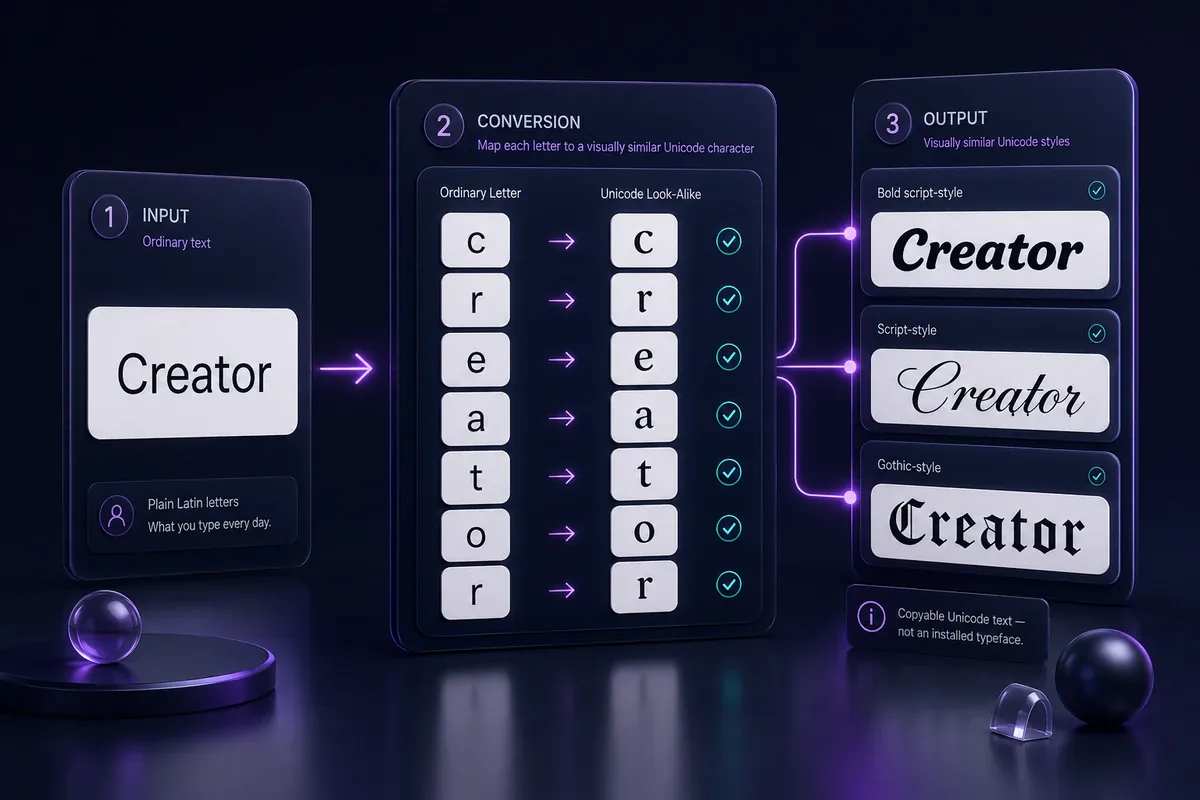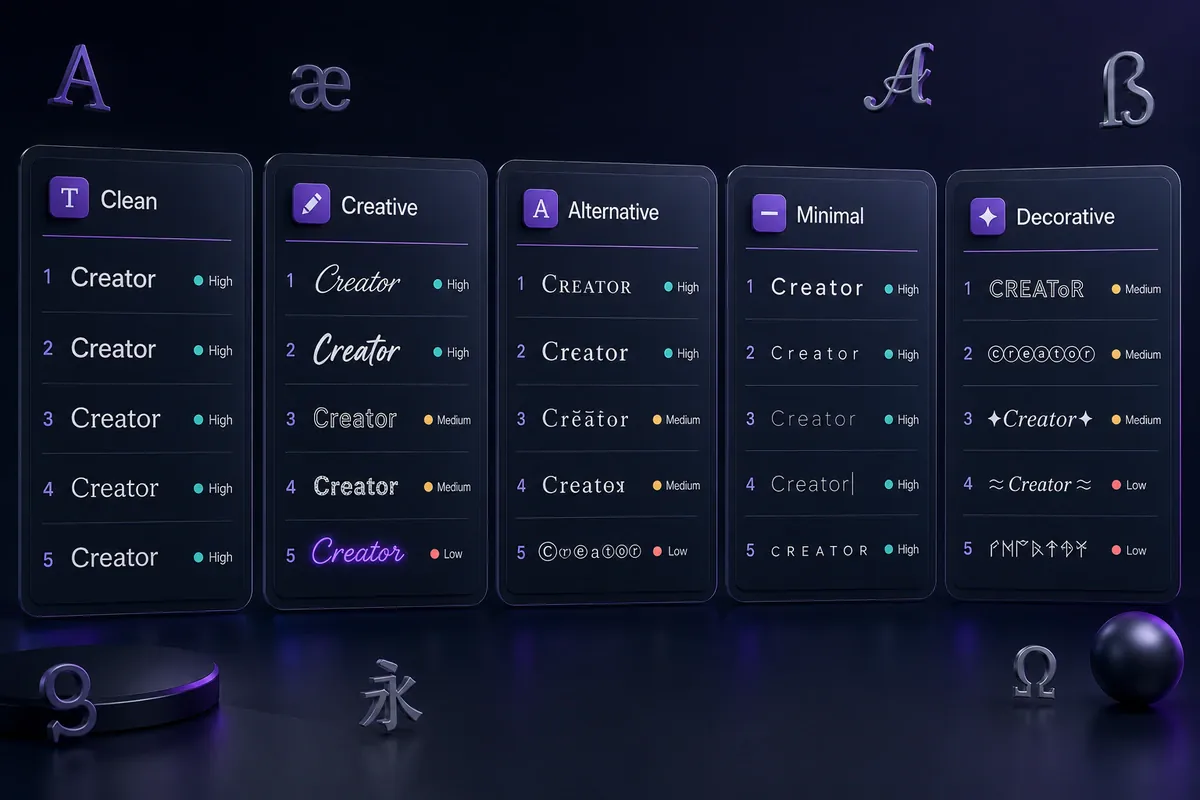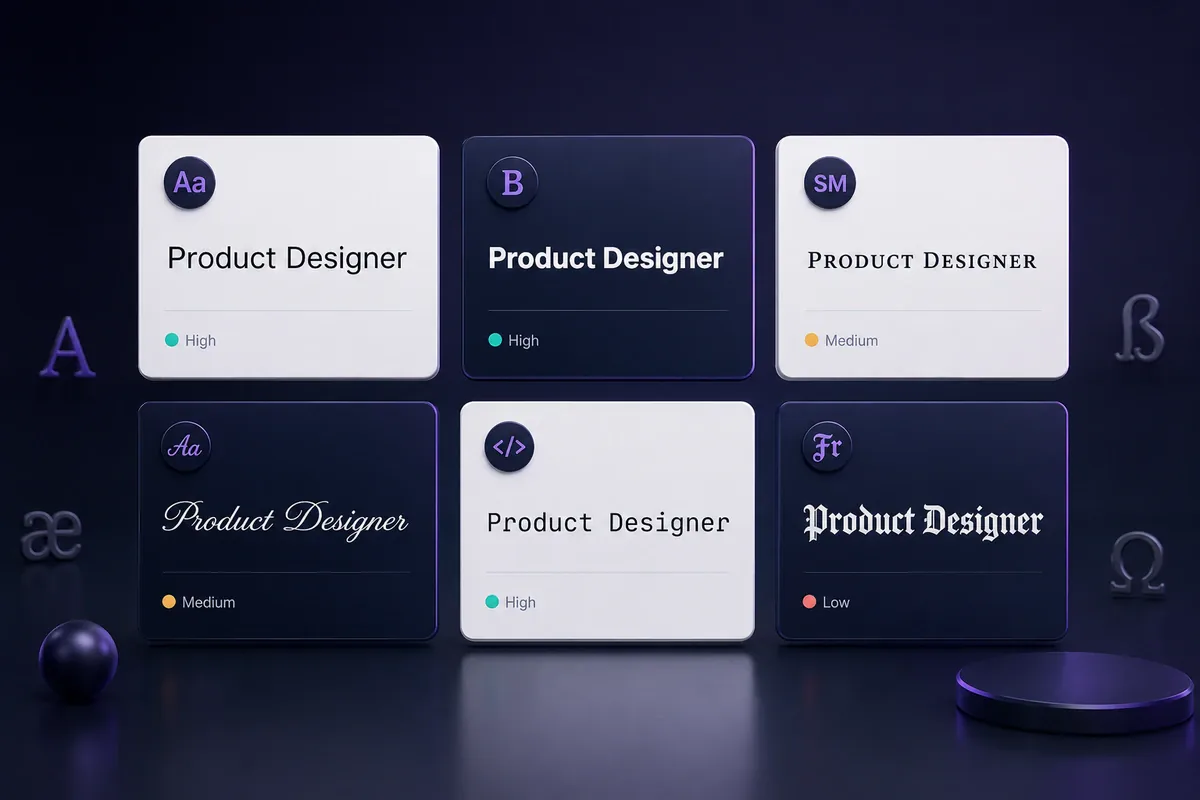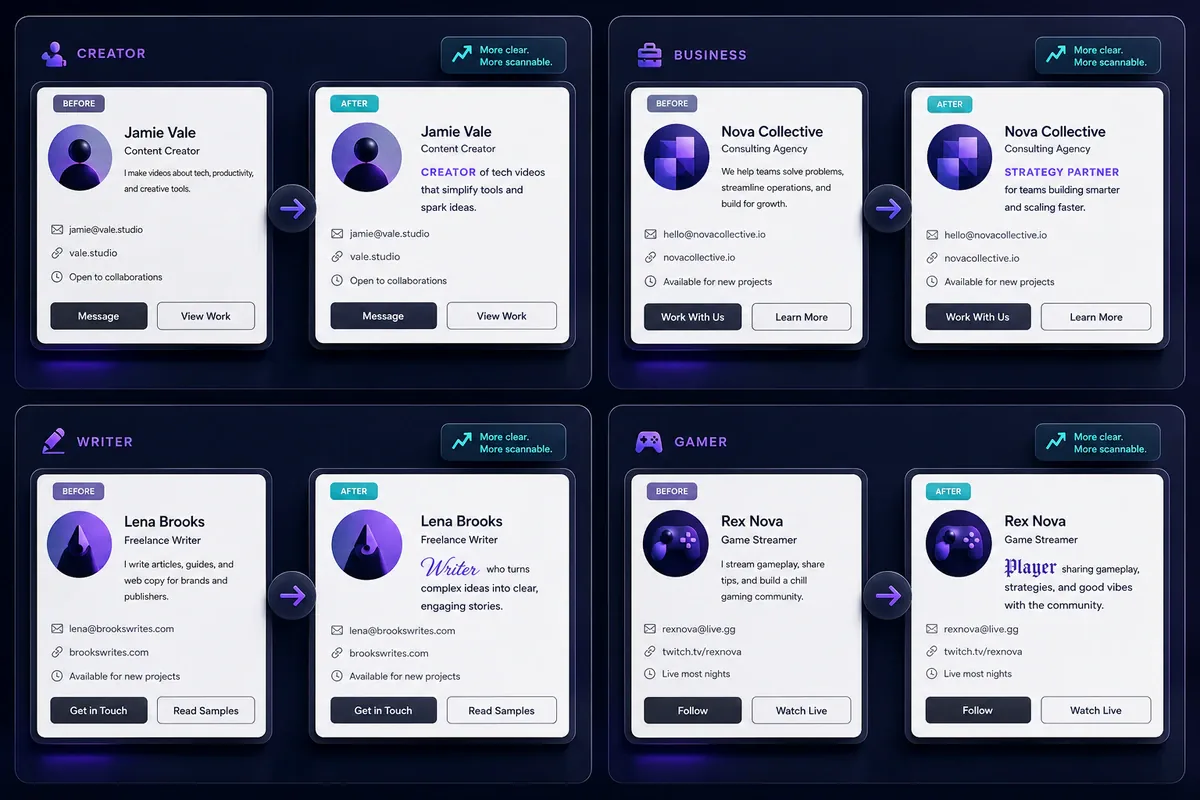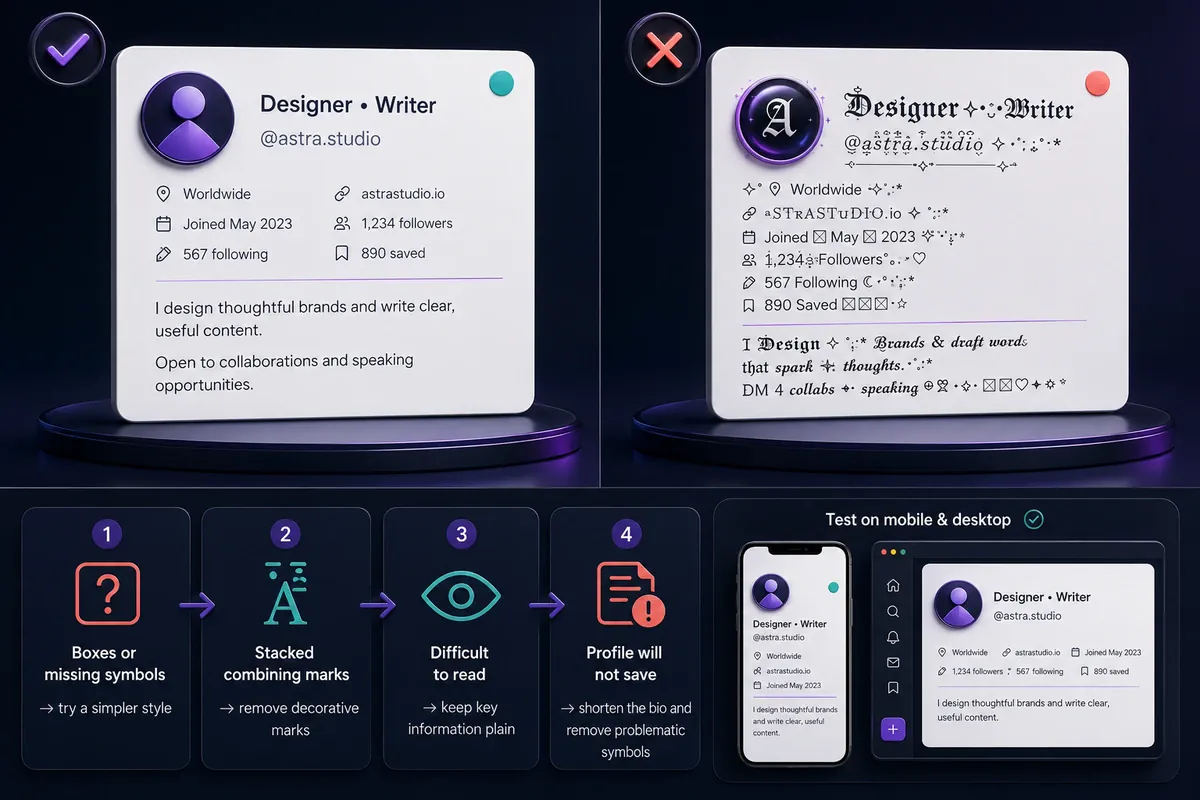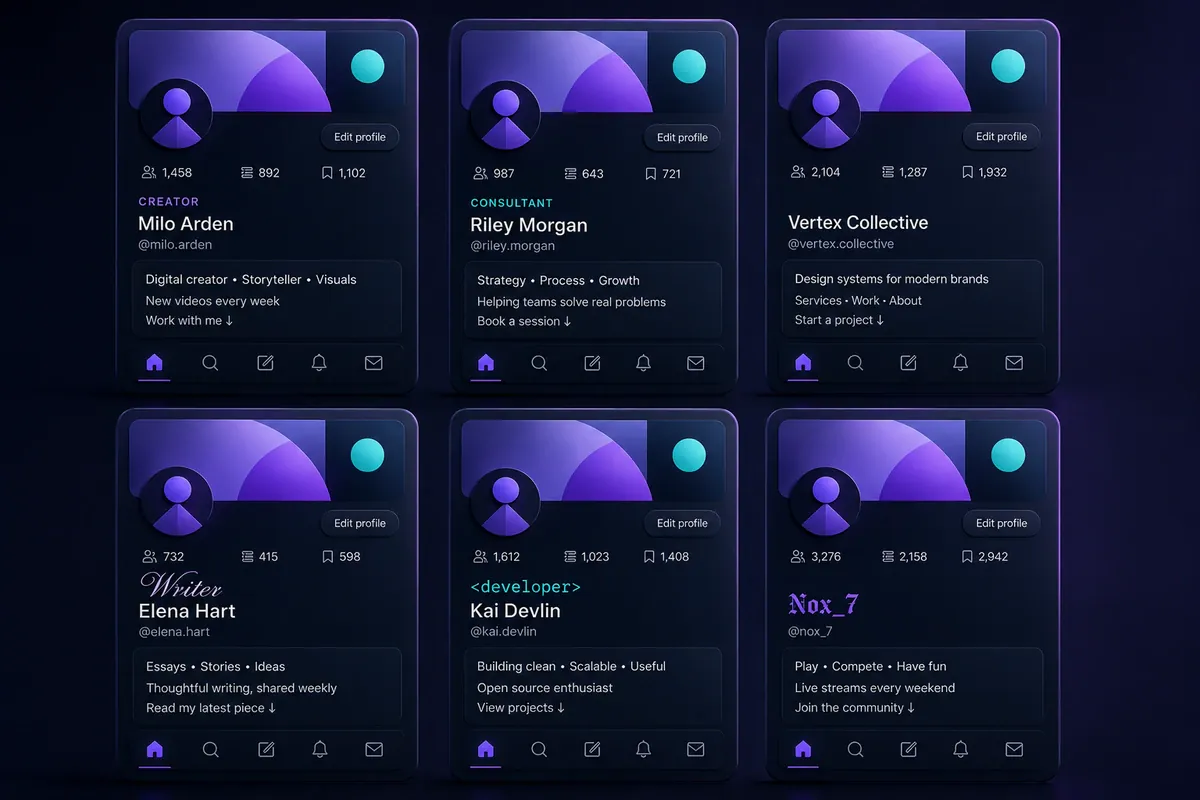
Best Fonts for Twitter Bio: 25 Copy-and-Paste Styles
Compare the best fonts for Twitter bio, copy 25 readable X styles, learn where Unicode text works, and fix broken or missing characters on mobile.
Readable font styles shown on Twitter and X bio mockups
The best fonts for Twitter bio text are bold sans-serif, small caps, monospace, and short cursive styles. Use them for one role or opening phrase, then keep names, links, contact details, and calls to action in plain text so the profile remains easy to read.
X does not include a normal profile font menu. A Twitter font generator replaces standard letters with visually similar Unicode characters that you can copy and paste.
The 25 options below include Unicode letter styles and decorative text effects. They are not 25 installed typefaces.
Quick Bio Font Checklist
• Style one short role, label, or opening phrase.
• Keep important account information in plain text.
• Start with bold, small caps, monospace, or light cursive.
• Check every letter before saving.
• Preview the finished bio at mobile size.
• Remove boxes, empty spaces, or misplaced marks.
• Keep a plain-text copy as a fallback.
Best Fonts for Twitter Bio at a Glance
Comparison of six readable Twitter bio font styles
The following styles offer a useful balance between personality and readability. The ratings are editorial judgments based on letter recognition, spacing, size, and reliance on combining marks.
StyleExampleReadabilityBest Fit
Bold sans-serif๐—–๐—ฟ๐—ฒ๐—ฎ๐˜๐—ผ๐—ฟHighBusinesses, consultants, creators
Bold serif๐‚๐ซ๐ž๐š๐ญ๐จ๐ซHighWriters, educators, publications
Small capsแด„ส€แด‡แด€แด›แดส€HighShort roles and category labels
Monospace๐™ฒ๐š›๐šŽ๐šŠ๐š๐š˜๐š›HighDevelopers, gamers, tech accounts
Cursive๐’ž๐“‡๐‘’๐’ถ๐“‰๐‘œ๐“‡MediumWriters, artists, personal brands
Fullwidth๏ผฃ๏ฝ’๏ฝ…๏ฝ๏ฝ”๏ฝ๏ฝ’MediumMusic, gaming, aesthetic profiles
Frakturโ„ญ๐”ฏ๐”ข๐”ž๐”ฑ๐”ฌ๐”ฏLowAlternative or gaming labels
Glitch textCฬทrฬดeฬตaฬธtฬทoฬตrฬธVery lowVery short decorative accents
For a professional profile, start with bold sans-serif or small caps. Monospace suits technical accounts, while restrained cursive can add a softer tone to a writer or artist bio.
Quick Example
Plain bio:
Growth strategist helping small brands plan clearer campaigns.
Styled bio:
๐—š๐—ฟ๐—ผ๐˜„๐˜๐—ต ๐—ฆ๐˜๐—ฟ๐—ฎ๐˜๐—ฒ๐—ด๐—ถ๐˜€๐˜
Helping small brands plan clearer campaigns.
The second version separates the role from the description without converting every sentence.
What Are Twitter Bio Fonts?
How plain letters become Unicode Twitter bio text
Twitter bio โ€œfontsโ€ are Unicode characters that resemble bold, cursive, outlined, Gothic, or other writing styles. They remain text rather than downloaded or installed typefaces.
Many generators repurpose mathematical alphanumeric symbols, letterlike symbols, compatibility characters, and combining marks for social profile styling. Some of these characters were encoded for mathematical, technical, or language-related purposes rather than decorative bios.
For example:
• Plain text: Creator
• Bold Unicode: ๐—–๐—ฟ๐—ฒ๐—ฎ๐˜๐—ผ๐—ฟ
• Script Unicode: ๐’ž๐“‡๐‘’๐’ถ๐“‰๐‘œ๐“‡
• Monospace Unicode: ๐™ฒ๐š›๐šŽ๐šŠ๐š๐š˜๐š›
Unicode assigns characters, while fonts and rendering systems determine the visible glyphs. This is why a character may look wider, thinner, or unsupported on another device. The Unicode Consortium explains how unsupported characters can appear as missing-glyph symbols when the available font cannot draw them. See its unsupported-character guidance.
25 Best Fonts for Twitter and X Bios
Twenty-five Unicode font styles and text effects for X bios
Each group has a different purpose. Clean styles suit longer labels. Decorative styles should be reserved for a word, name, or short accent.
Clean and Professional Styles
1. Bold sans-serif โ€” ๐—–๐—ฟ๐—ฒ๐—ฎ๐˜๐—ผ๐—ฟ
Clear and direct for job titles, services, and category labels. Create related styles with the bold text generator.
2. Bold serif โ€” ๐‚๐ซ๐ž๐š๐ญ๐จ๐ซ
A more formal option for writers, educators, editors, and publications.
3. Bold italic โ€” ๐‘ช๐’“๐’†๐’‚๐’•๐’๐’“
Adds movement while keeping strong letter shapes.
4. Italic sans-serif โ€” ๐˜Š๐˜ณ๐˜ฆ๐˜ข๐˜ต๐˜ฐ๐˜ณ
Works for a tagline, specialty, or short personal statement.
5. Small caps โ€” แด„ส€แด‡แด€แด›แดส€
A neat choice for labels such as โ€œWRITER,โ€ โ€œFOUNDER,โ€ or โ€œDESIGNER.โ€
6. Monospace โ€” ๐™ฒ๐š›๐šŽ๐šŠ๐š๐š˜๐š›
Fits developers, data professionals, security researchers, and gaming accounts.
7. Double-struck โ€” โ„‚๐•ฃ๐•–๐•’๐•ฅ๐• ๐•ฃ
Conclusion: Choose a Style That Remains Clear
The best fonts for Twitter bio text give one useful detail extra emphasis without making the full profile difficult to read. Bold sans-serif, small caps, monospace, and short cursive phrases are sensible starting points.
Check every character, keep essential details plain, and replace any style that appears broken on mobile.